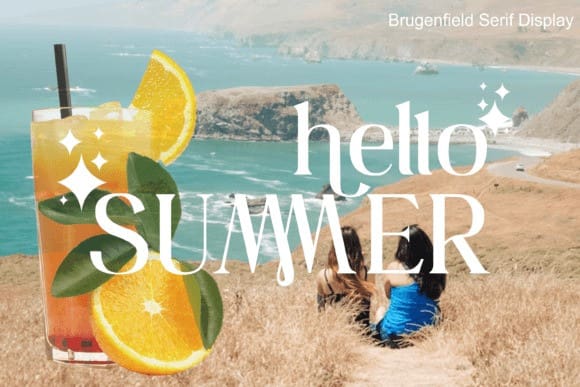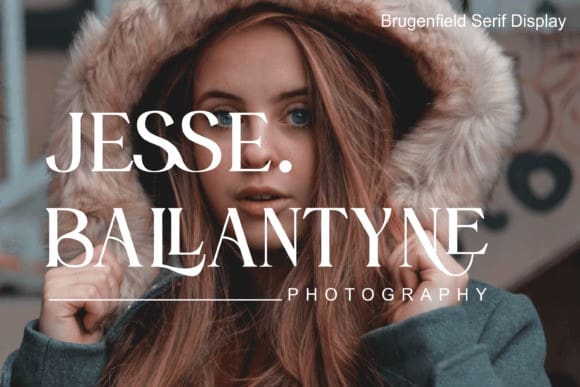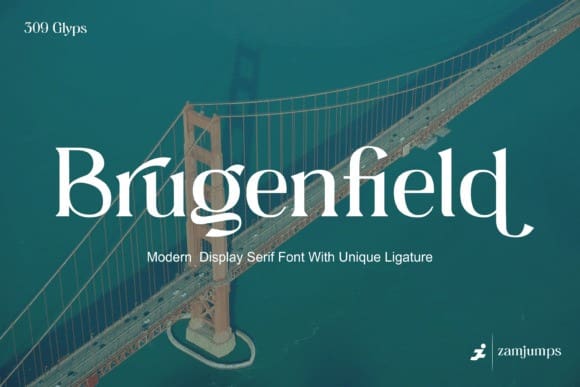
Brugenfield Font
Brugenfield Font is a modern serif display with a unique ligature. It is suitable for logos, headlines, titles and various other formal forms such as invitations, labels, logos, magazines, books, greeting and wedding cards, packaging, fashion, make up, stationery, novels, labels or any kind of advertising purposes.